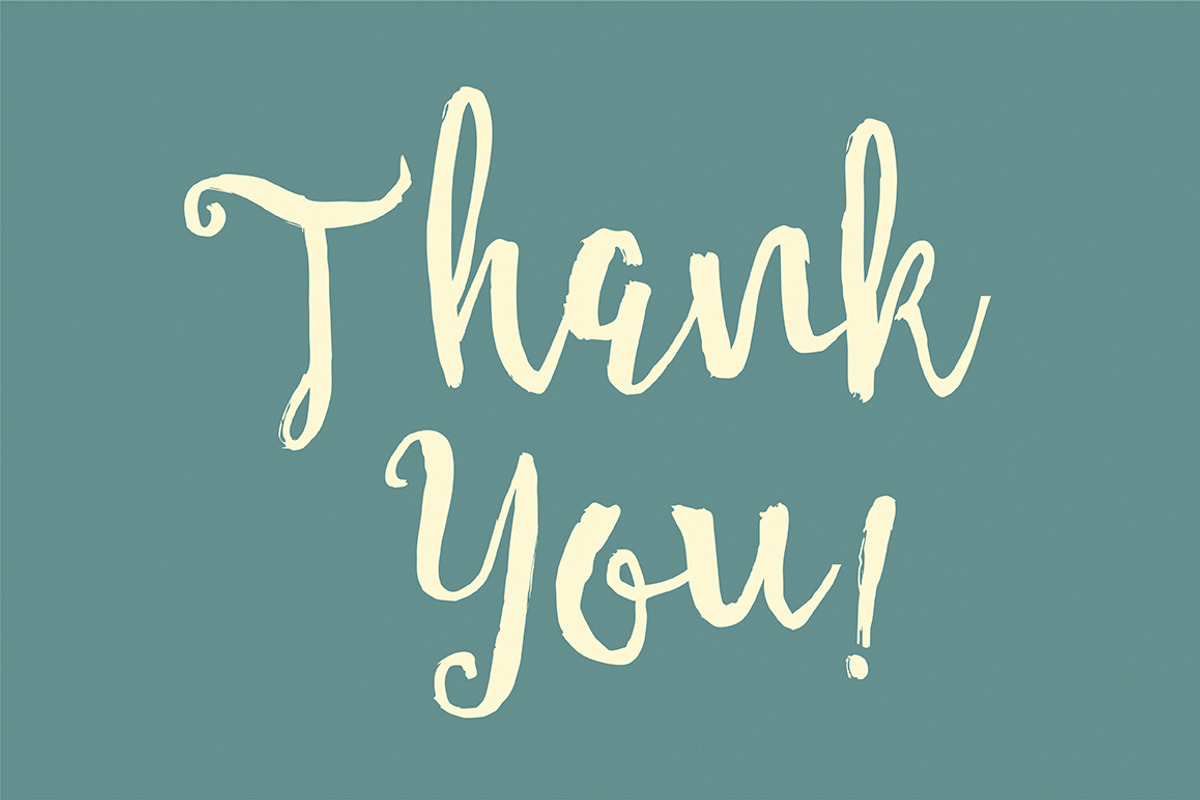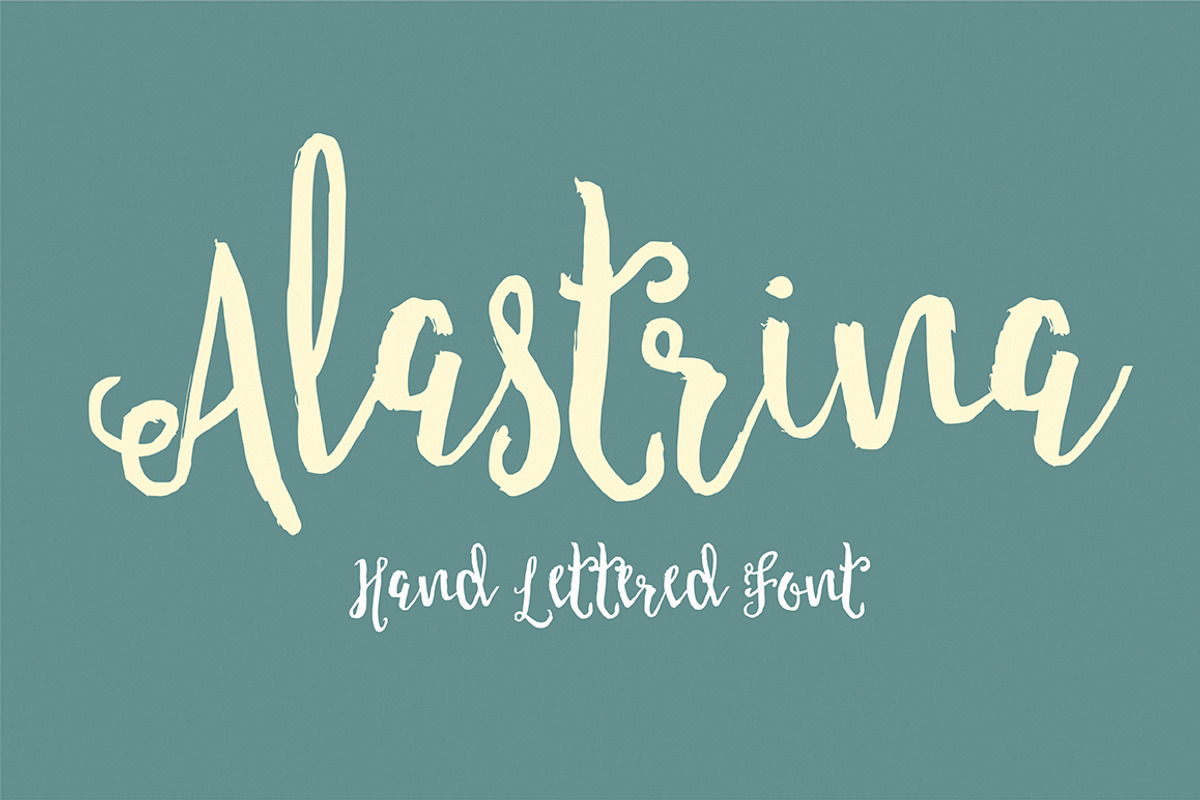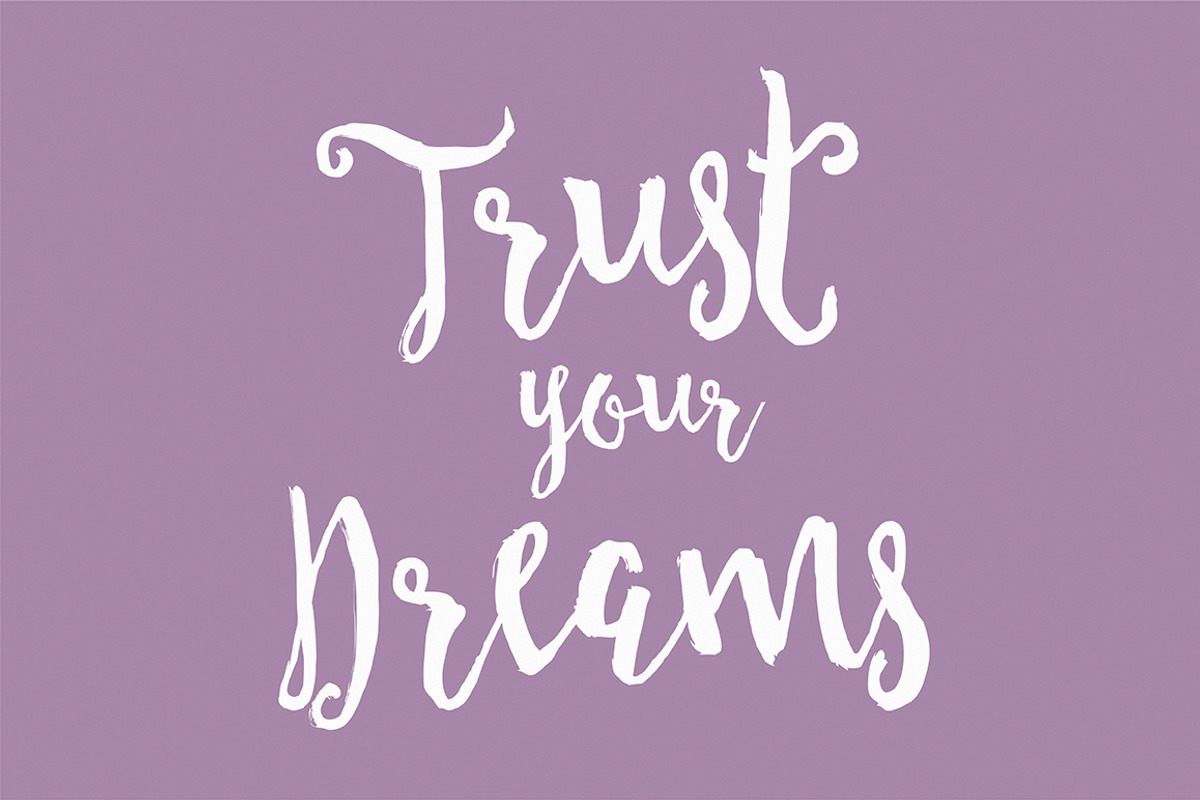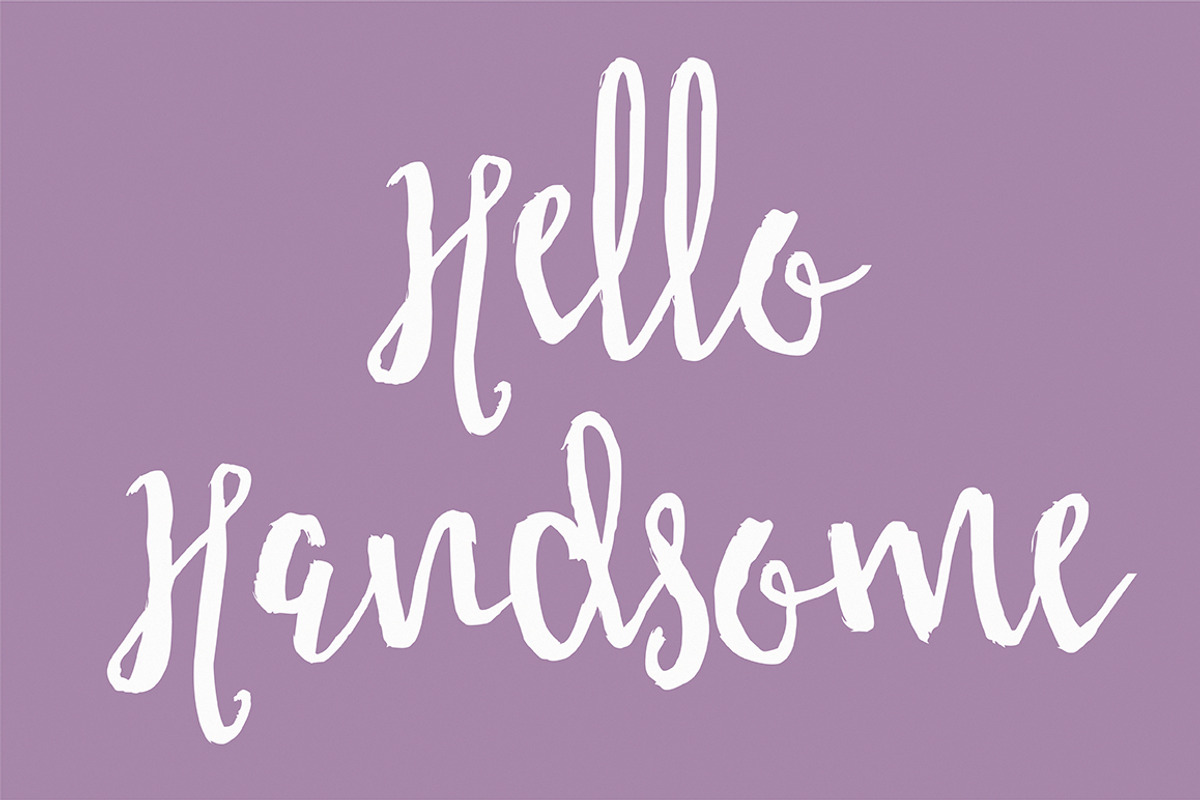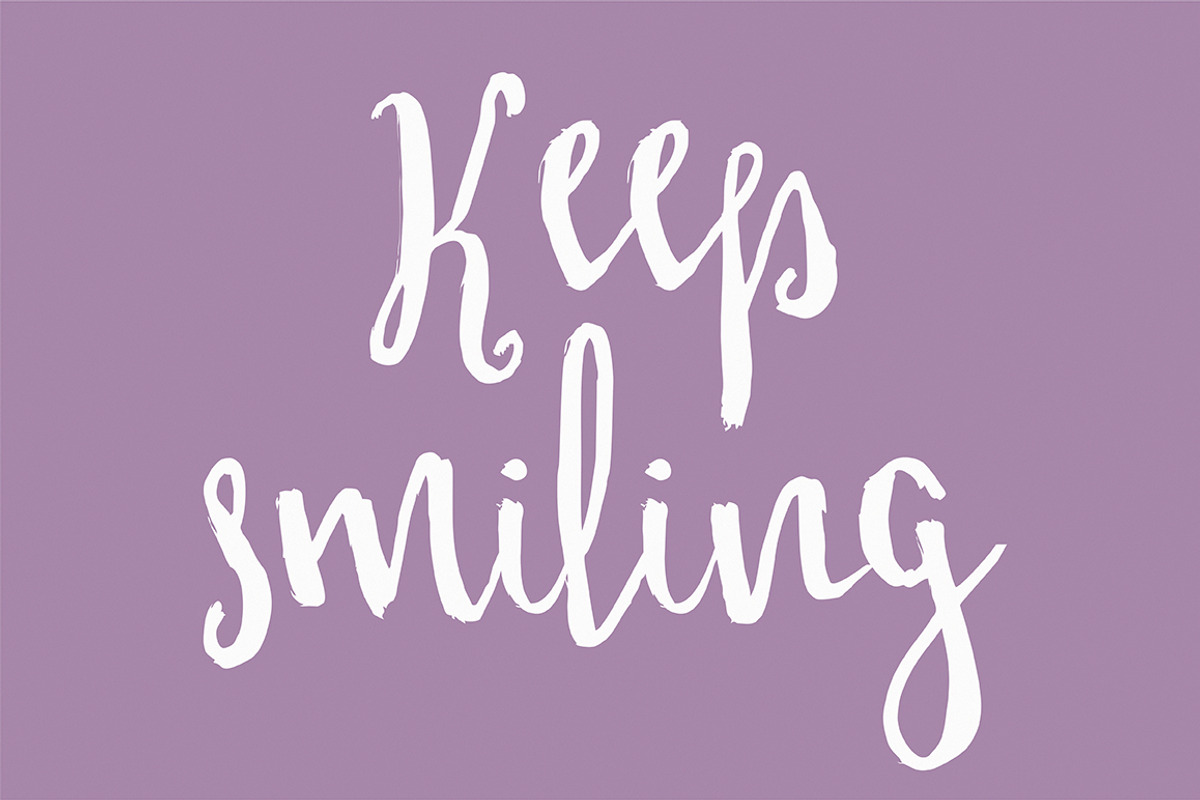
Alastrina Typeface
Alastrina Typeface by Areatype is a font selected for branding, posters, packaging, typography.
Why Alastrina Typeface is worth a look
Alastrina Typeface by Areatype fits naturally into Branding, posters, packaging, typography.